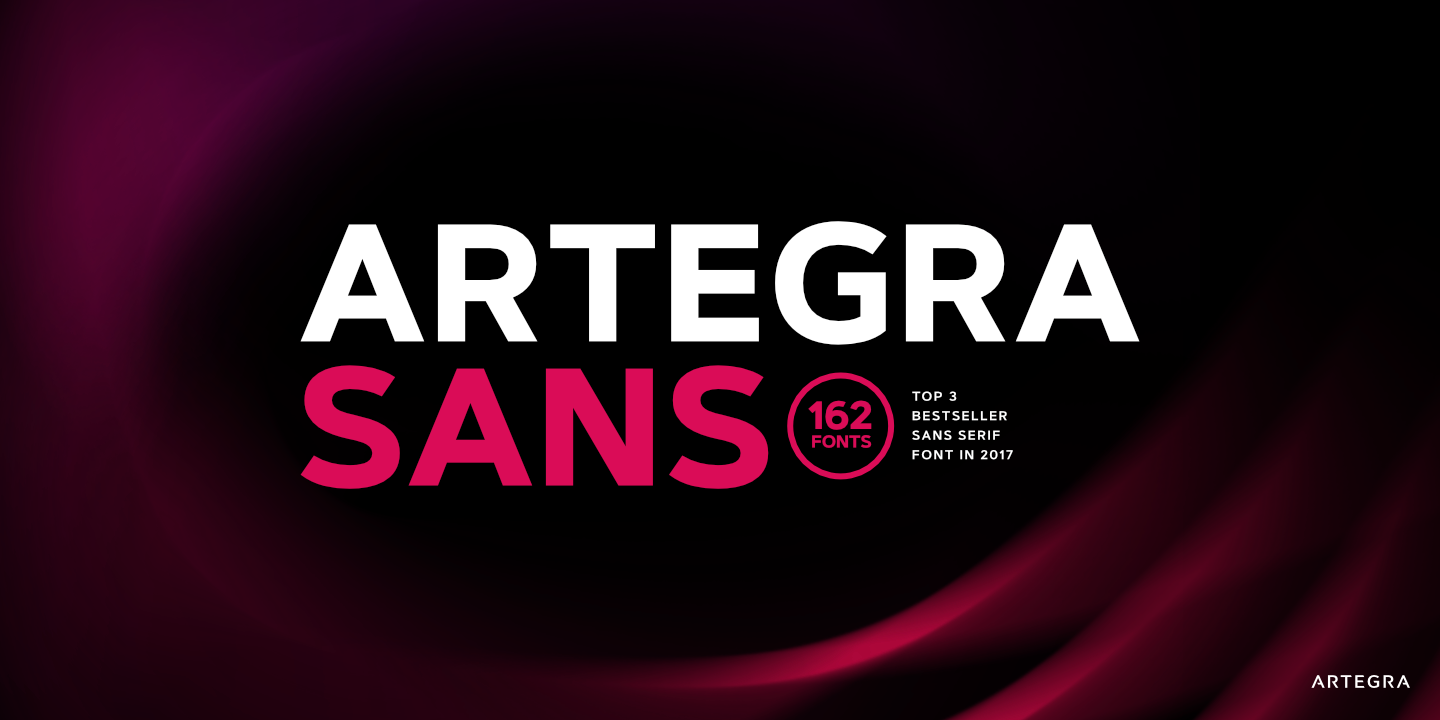
Artegra Sans Font is a clean, modern sans-serif typeface designed for clarity and versatility. Ideal for branding, web design, editorial content, and user interfaces, this font offers a minimalist aesthetic that enhances readability.
What makes Artegra Sans Font Free Download so exciting is its balanced proportions and neutral style, allowing it to seamlessly adapt to a wide range of design projects, from corporate identities to creative campaigns.
The Artegra Sans Font family typically includes multiple weights, ranging from Light to Bold, with matching italics, providing designers with flexibility to create structured and dynamic typography.
Whether you're designing a sleek website, professional presentations, or marketing materials, Artegra Sans Font Free Download ensures your content looks polished and modern with effortless style.